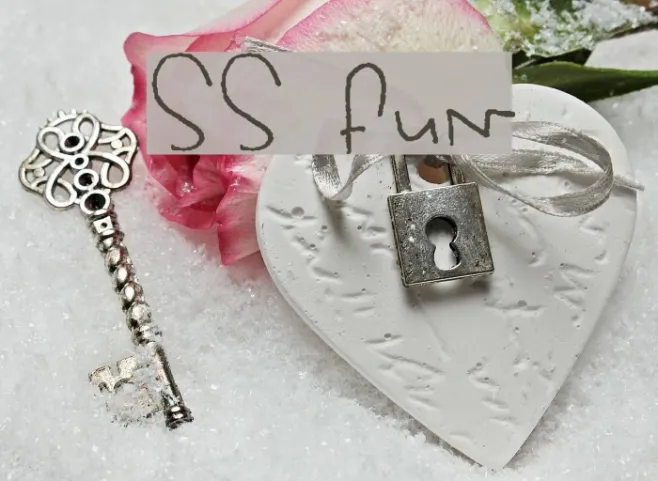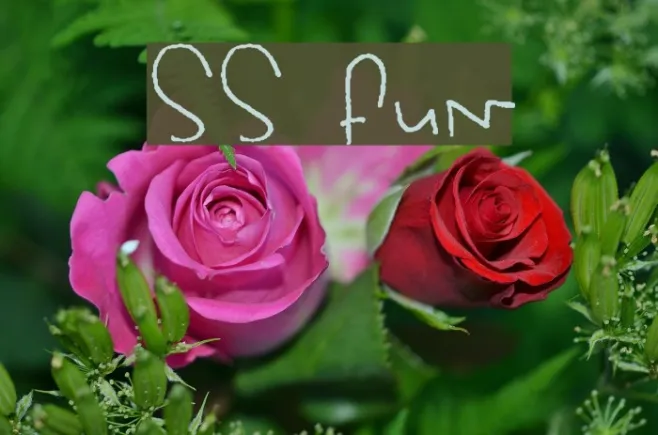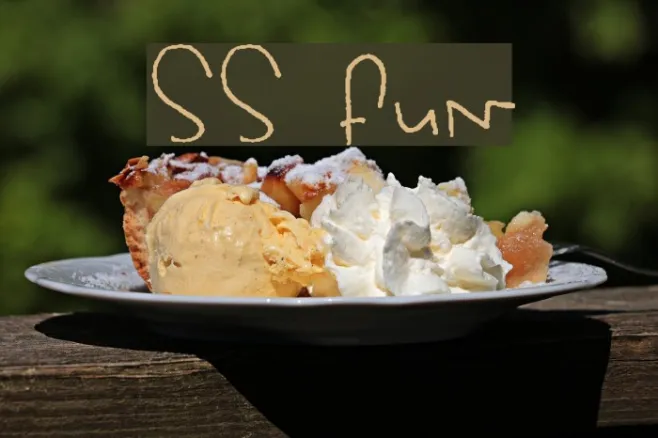
SS Fun Font
SS Fun Description
This playful and whimsical font features a handwritten style with irregular, slightly wavy lines that give it a casual and friendly appearance. The characters are uniquely crafted with varying heights and widths, adding to its charm and informal vibe. The uppercase and lowercase letters maintain a consistent style, with some letters like 'Q' and 'g' having distinctive loops. Numbers and special characters are included, each with a quirky twist that complements the overall aesthetic. This font is perfect for projects that require a personal touch or a fun, light-hearted feel.
| Proposed Projects | Ideal for children's books, greeting cards, playful branding, and casual invitations. |